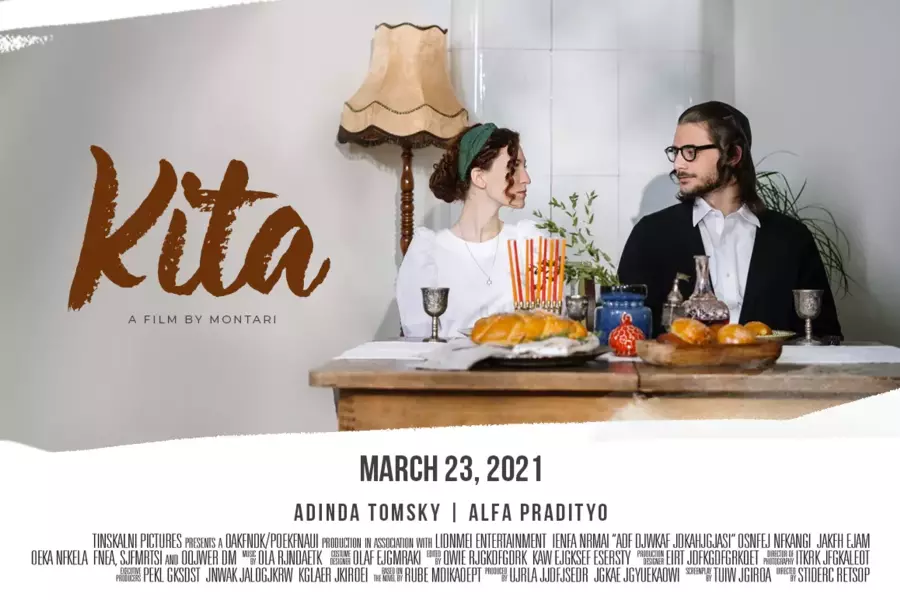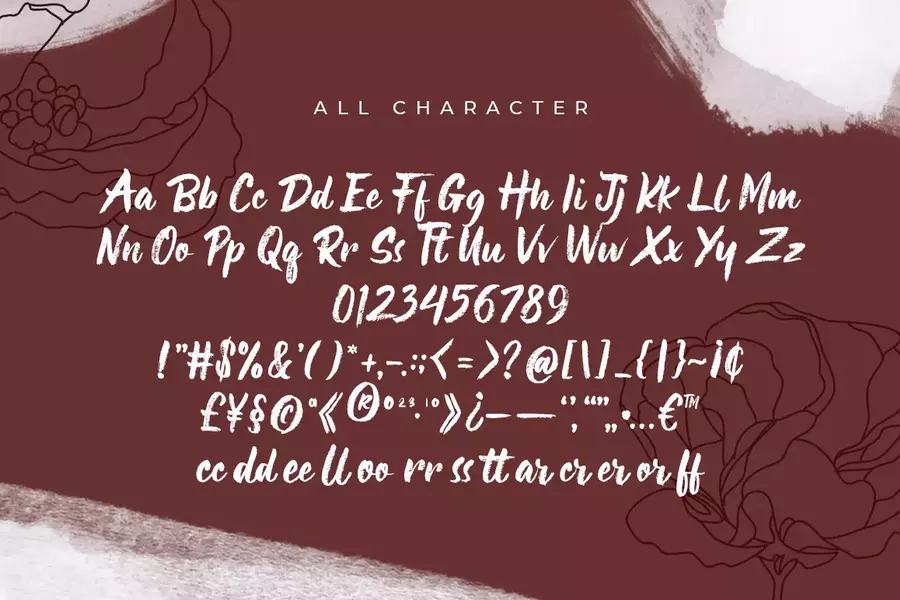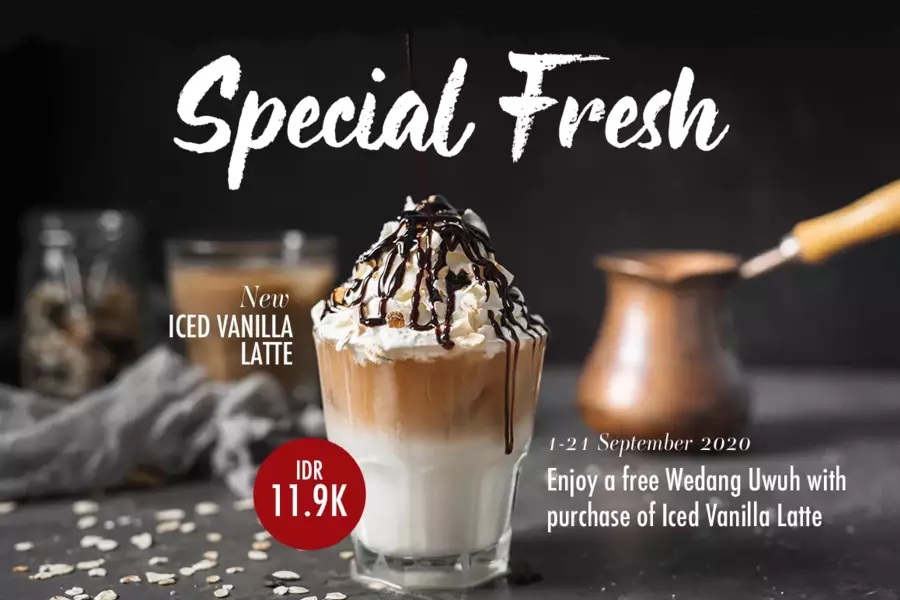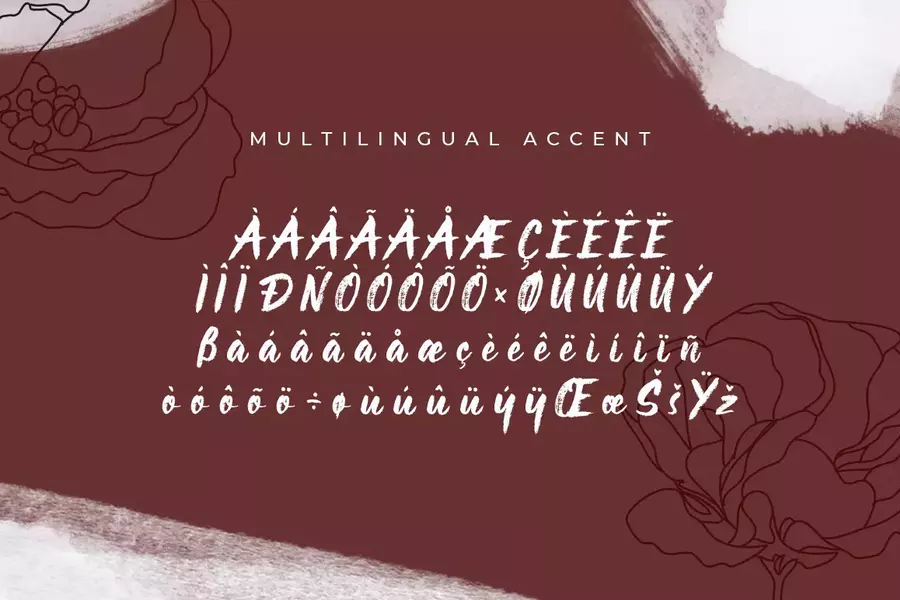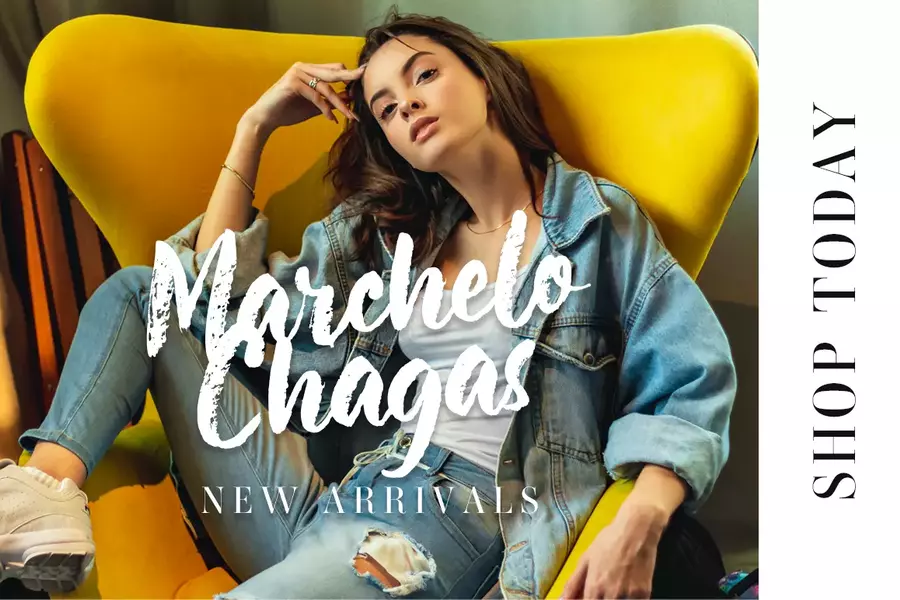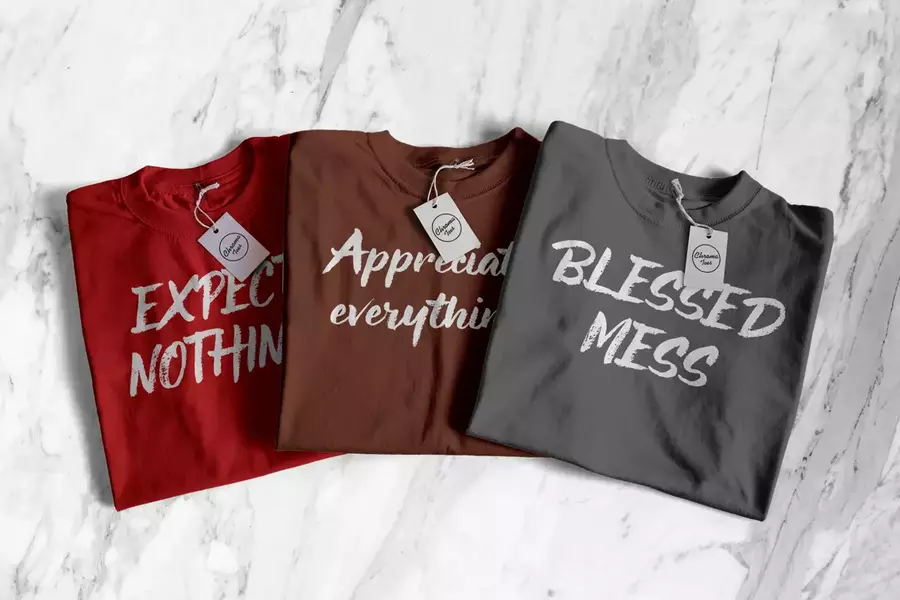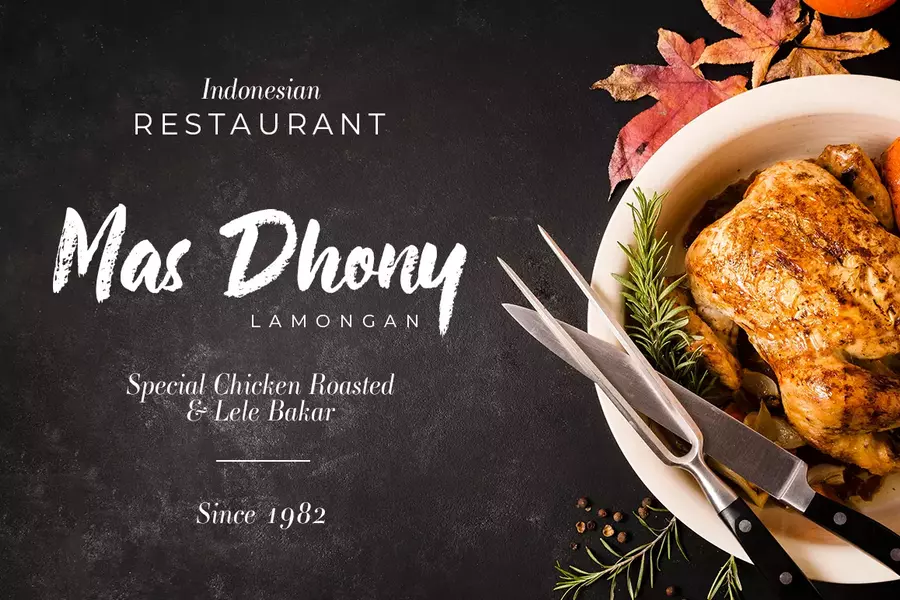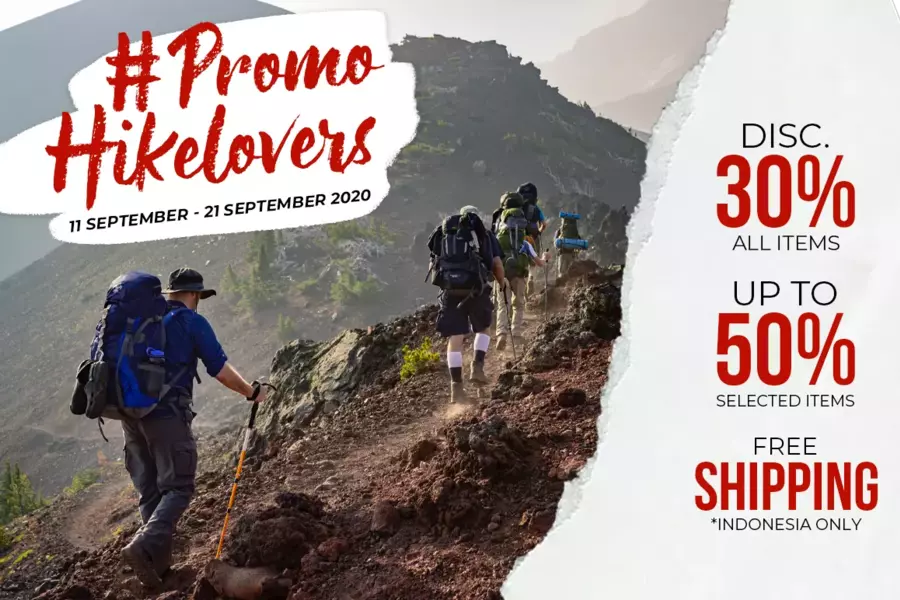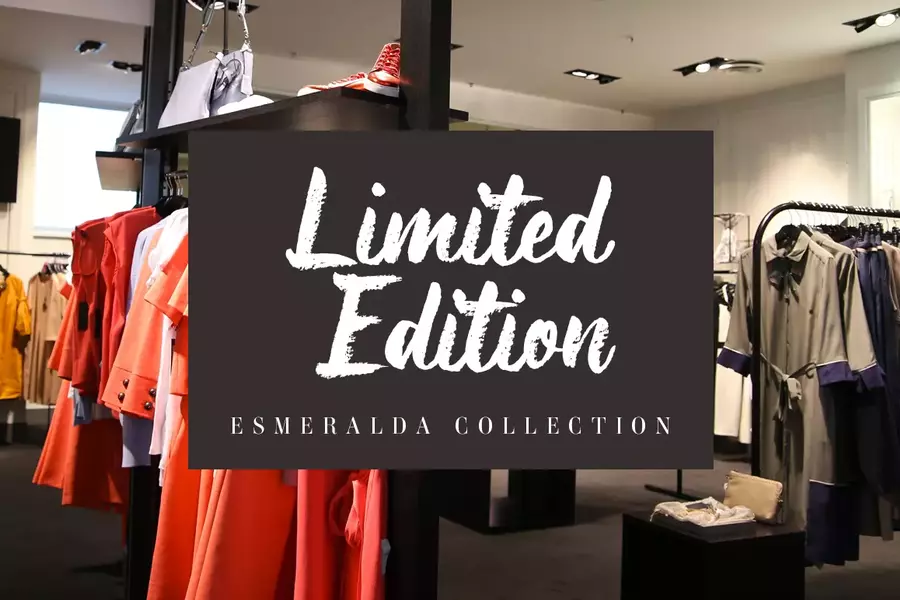
Buree Chalk – Fresh Modern Script
Buree Chalk - Fresh Modern Script
Buree Chalk is a unique handwritten font with a chalk texture. Fall in love with it and bring your projects to the highest levels!